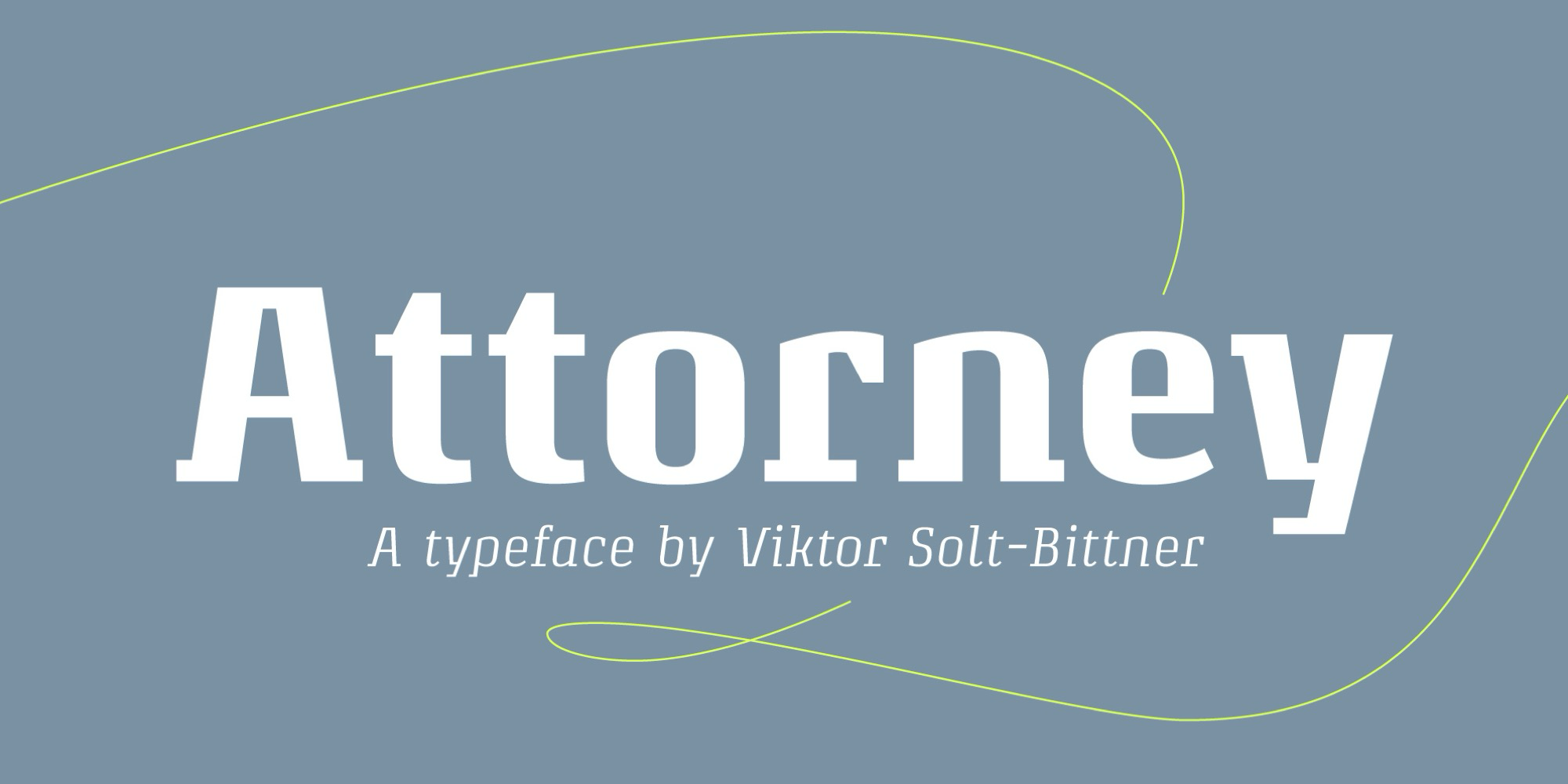
The Attorney Font is a sophisticated and authoritative typeface, specifically designed to convey professionalism, trustworthiness, and a timeless sense of gravitas. Imagine this font being used on official legal documents, adding a distinguished air to corporate reports, or bringing an undeniable sense of credibility to financial advisement branding. Its classic serifs, balanced proportions, and clear readability make it an excellent choice for law firm websites, academic publications, and any project where clarity, precision, and an esteemed presence are paramount. Attorney Font is also wonderfully suited for professional resumes, formal invitations, and any design that benefits from an elegant, no-nonsense strength.
What makes Attorney Font so exciting is its immediate ability to inspire confidence and project an image of established authority. It possesses an inherent gravitas that makes your message feel thoroughly considered and highly credible. The meticulous attention to detail in its letterforms ensures superior legibility, even in dense blocks of text, making it perfect for serious content. This font doesn't just display information; it pronounces it with conviction and an air of professional expertise, making every word feel weighty and significant. Its timeless appeal ensures your designs will maintain a distinguished and respected appearance for years to come.
The Attorney Font family, built for comprehensive professional application, typically offers a wide array of weights and styles to provide designers with maximum flexibility. You'll often find a spectrum ranging from a versatile Regular, through a reliable Medium, up to a commanding Bold weight. Many professional serif families like Attorney also include Italic versions for each weight, expanding its expressive capabilities for emphasis or distinction. These extensive variations ensure that Attorney Font can be effectively employed for diverse typographic hierarchies, from subtle legal disclaimers to prominent firm names, all while maintaining a consistent and highly reputable visual identity. For those seeking the distinguished Attorney Font Free Download, its comprehensive family ensures it can meet a wide range of professional design demands.